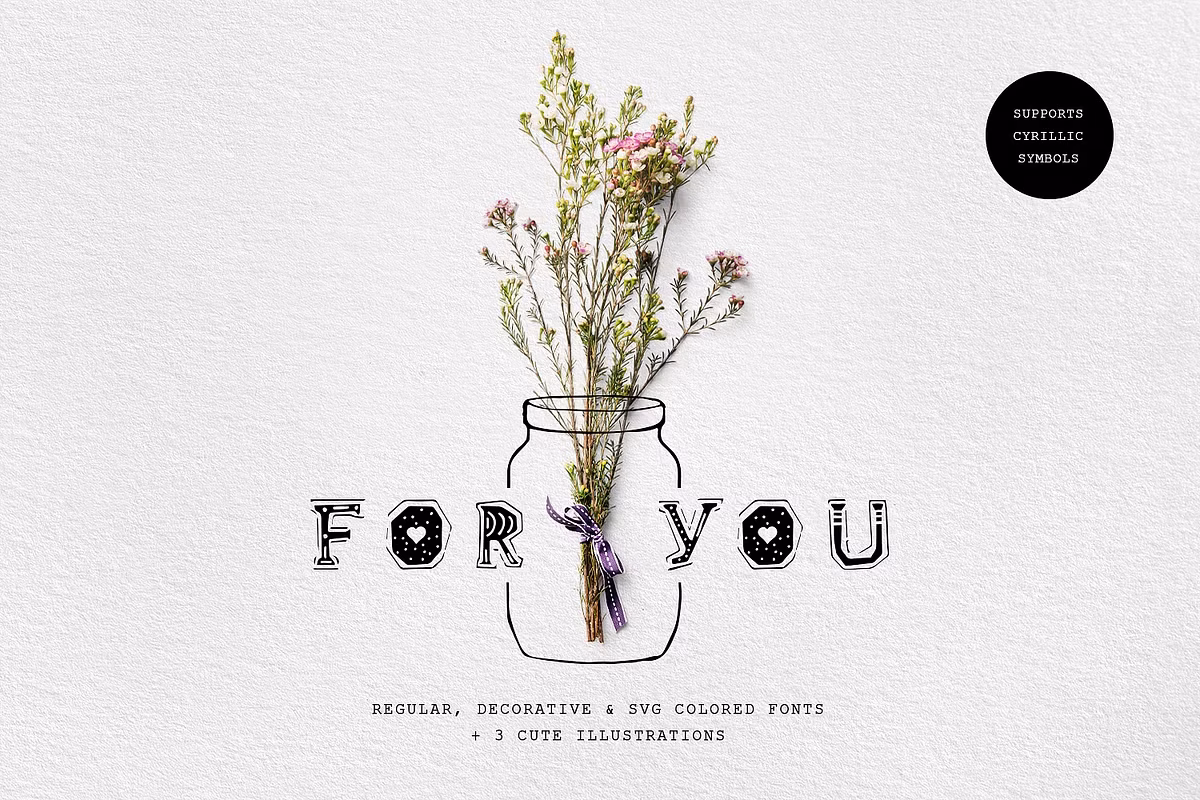
Please note that you must purchase this font for commercial use. You can download For You! – Decorative & Colored Fonts for free, strictly for personal testing purposes only. "For You!" is a playful and vibrant collection of decorative and color fonts designed to add personality, charm, and visual flair to your creative projects. With unique shapes, colorful layers, and fun stylistic touches, For You! Decorative & Colored Fonts Free Download is perfect for greeting cards, kids’ designs, party invitations, packaging, social media posts, and creative branding.
As a color OpenType-SVG font, it preserves full color and texture details directly within the characters—ideal for use in compatible design software like Adobe Illustrator, Photoshop, or Procreate. The set usually includes uppercase letters, numerals, punctuation, and multilingual support.
Whether you’re creating joyful graphics or playful branding, For You! brings creativity and expressiveness to your typography.